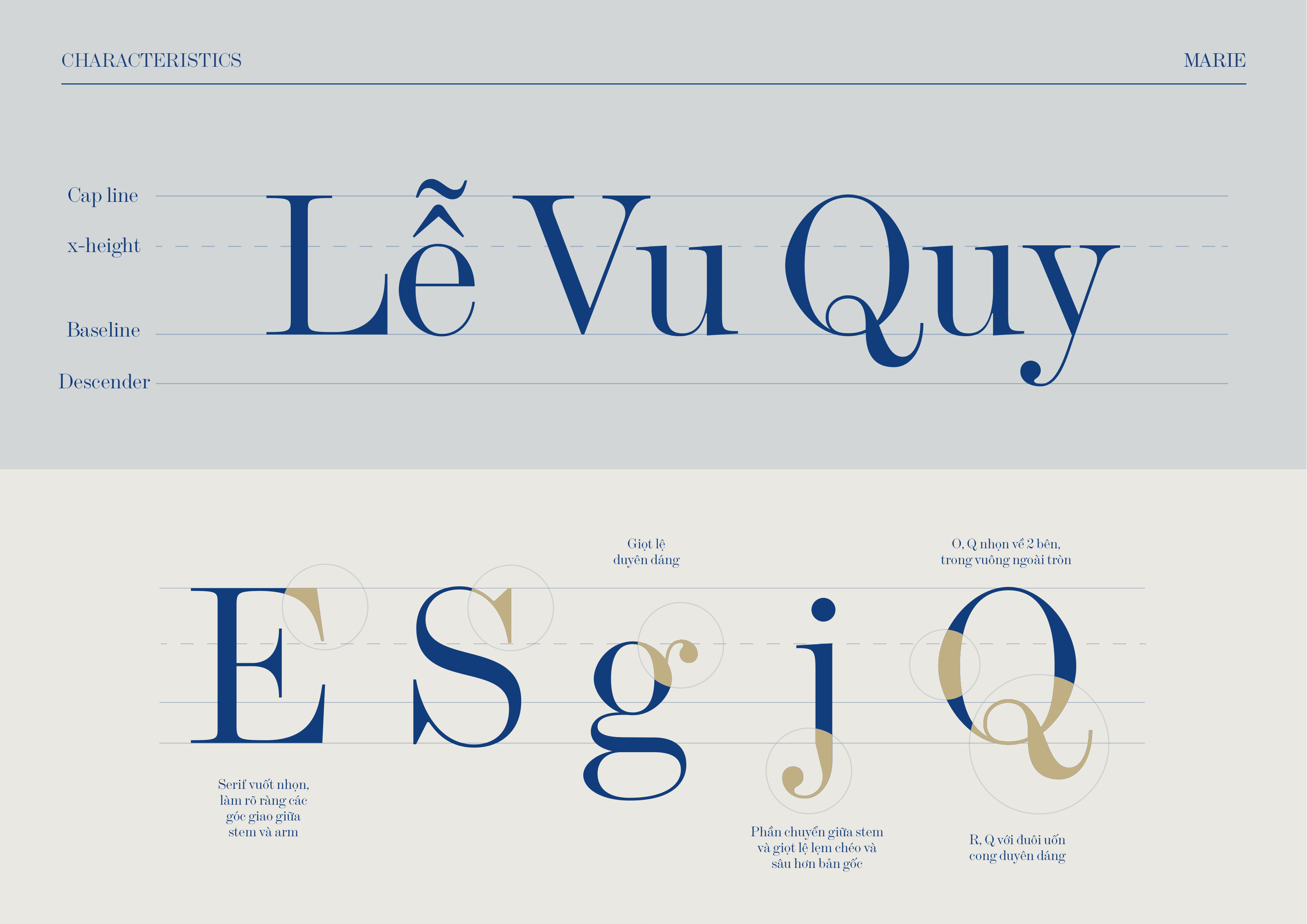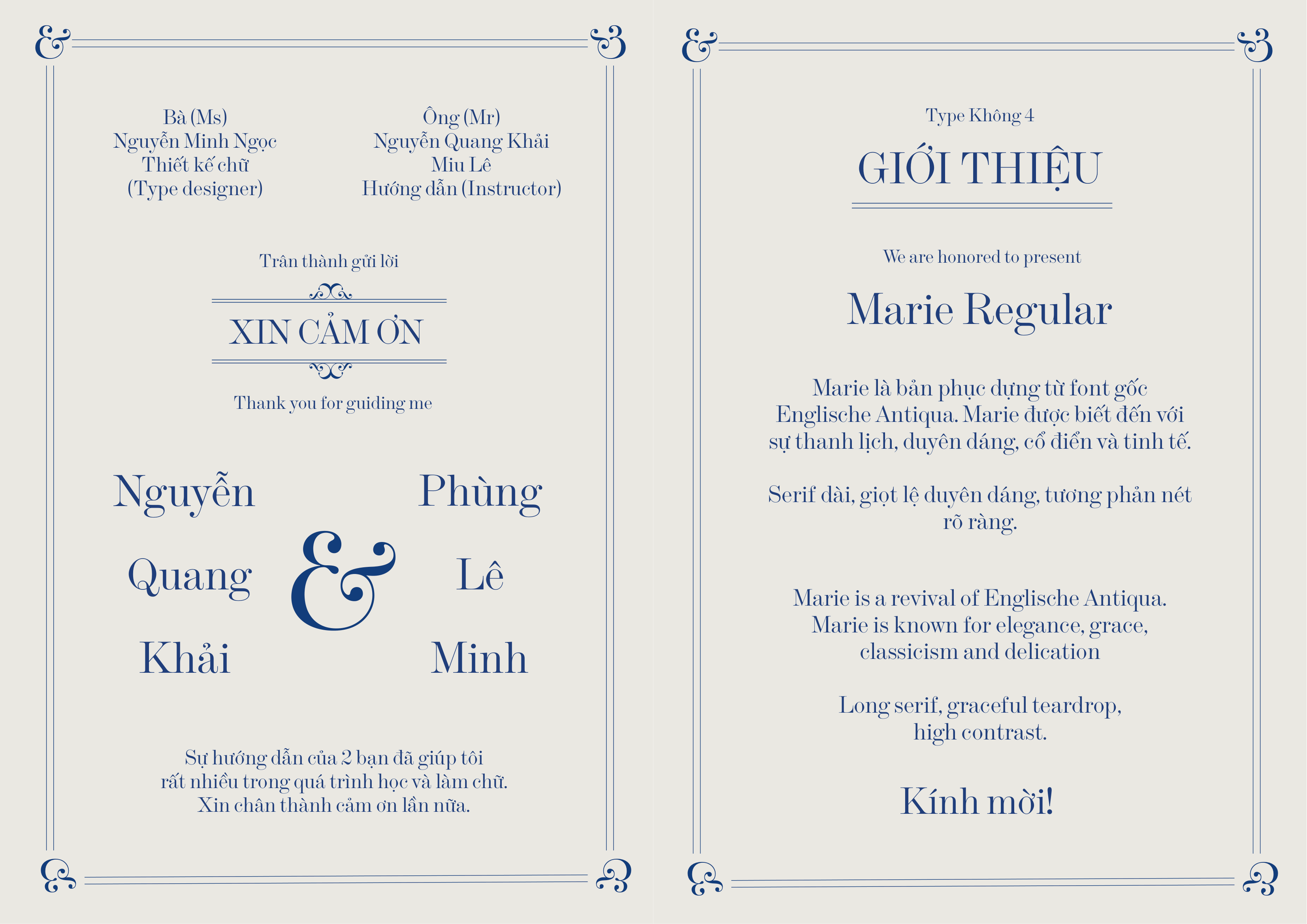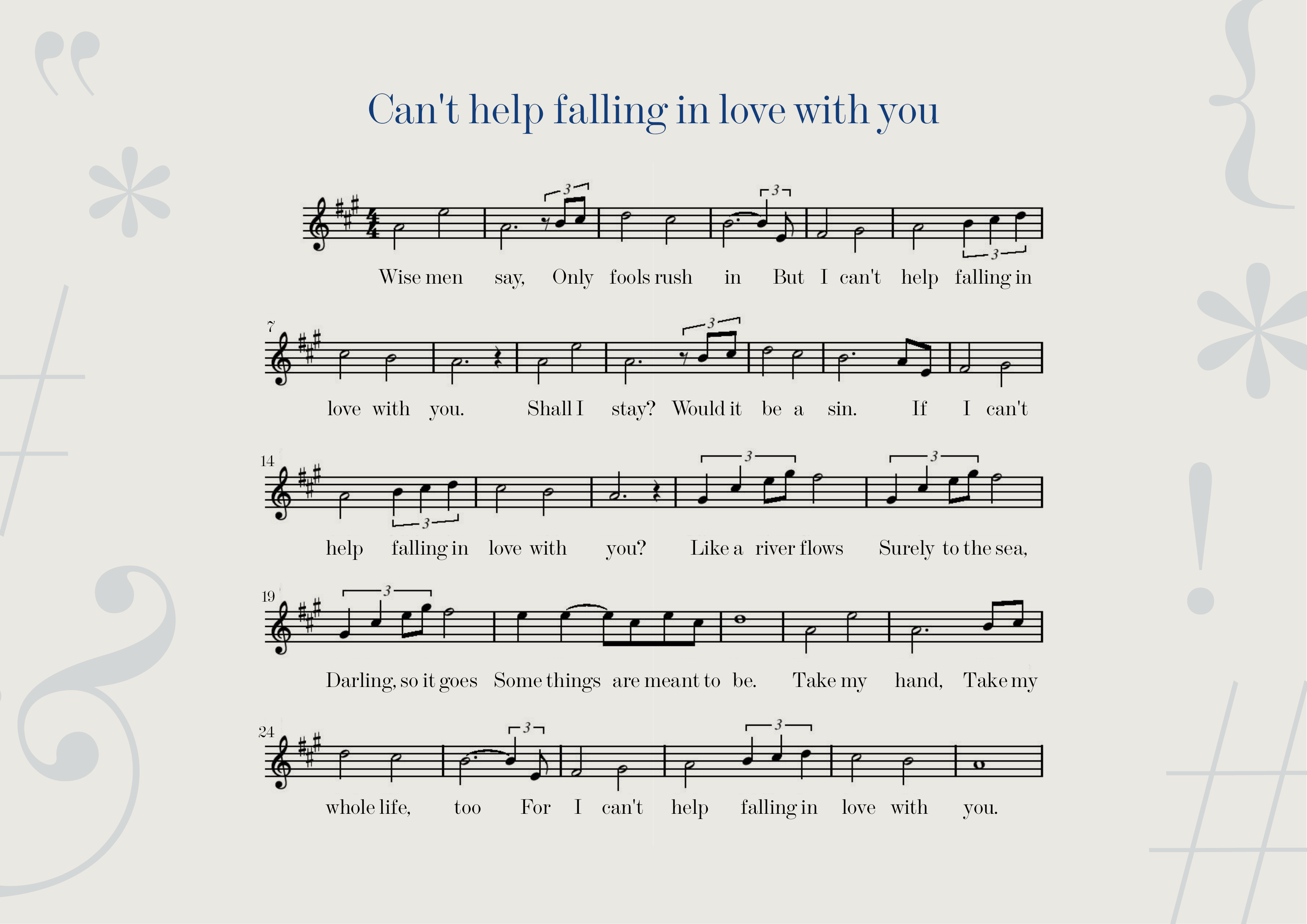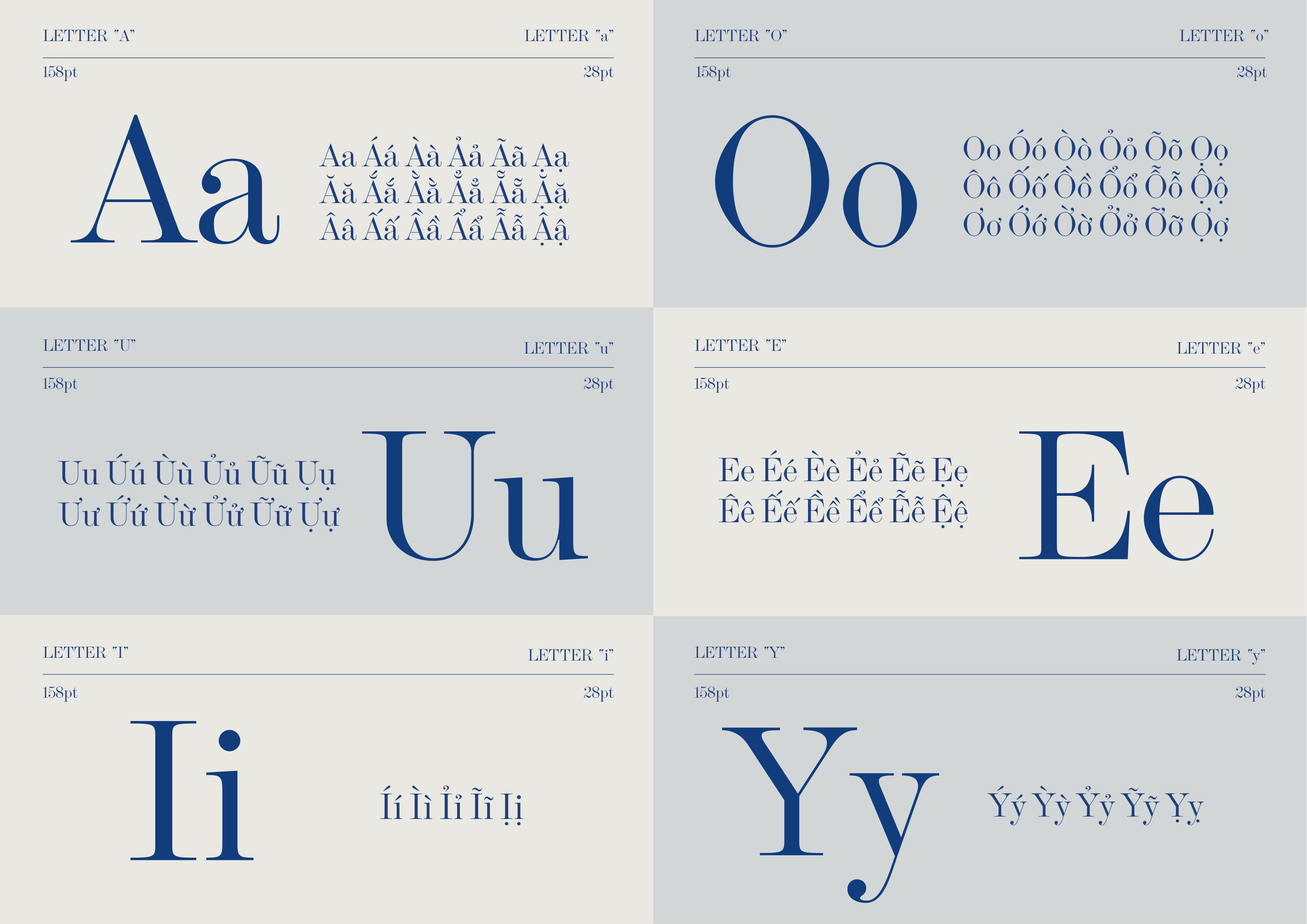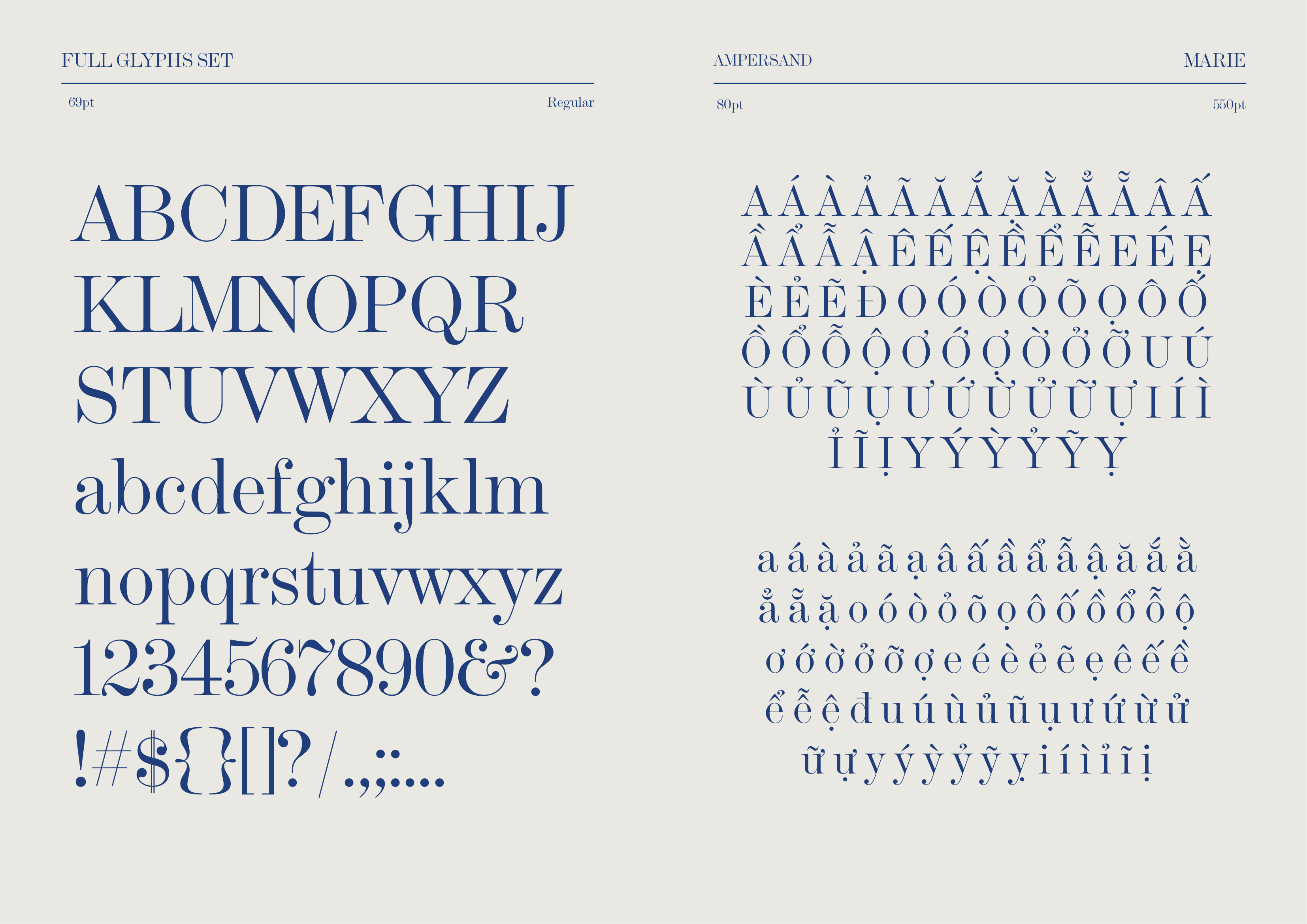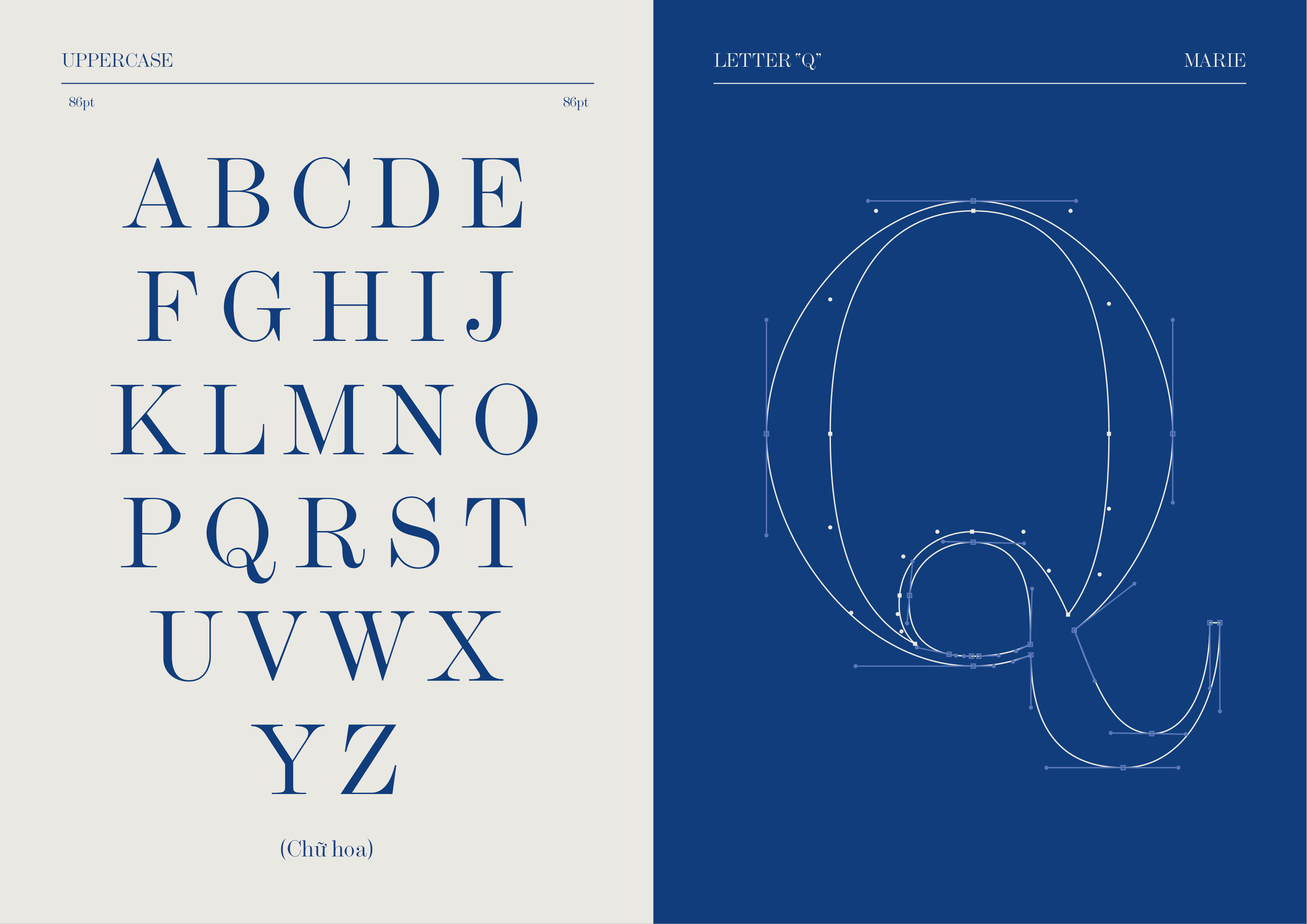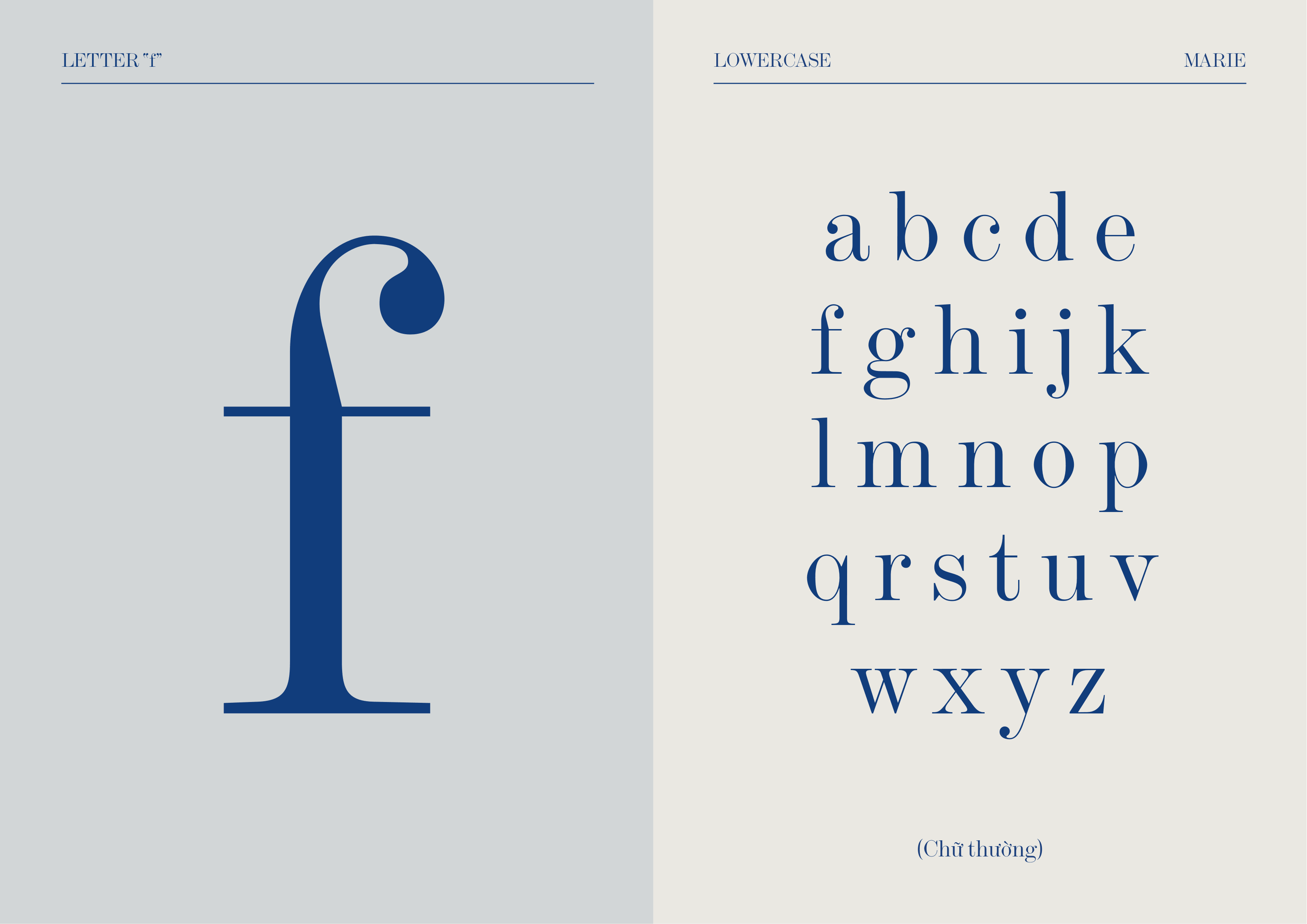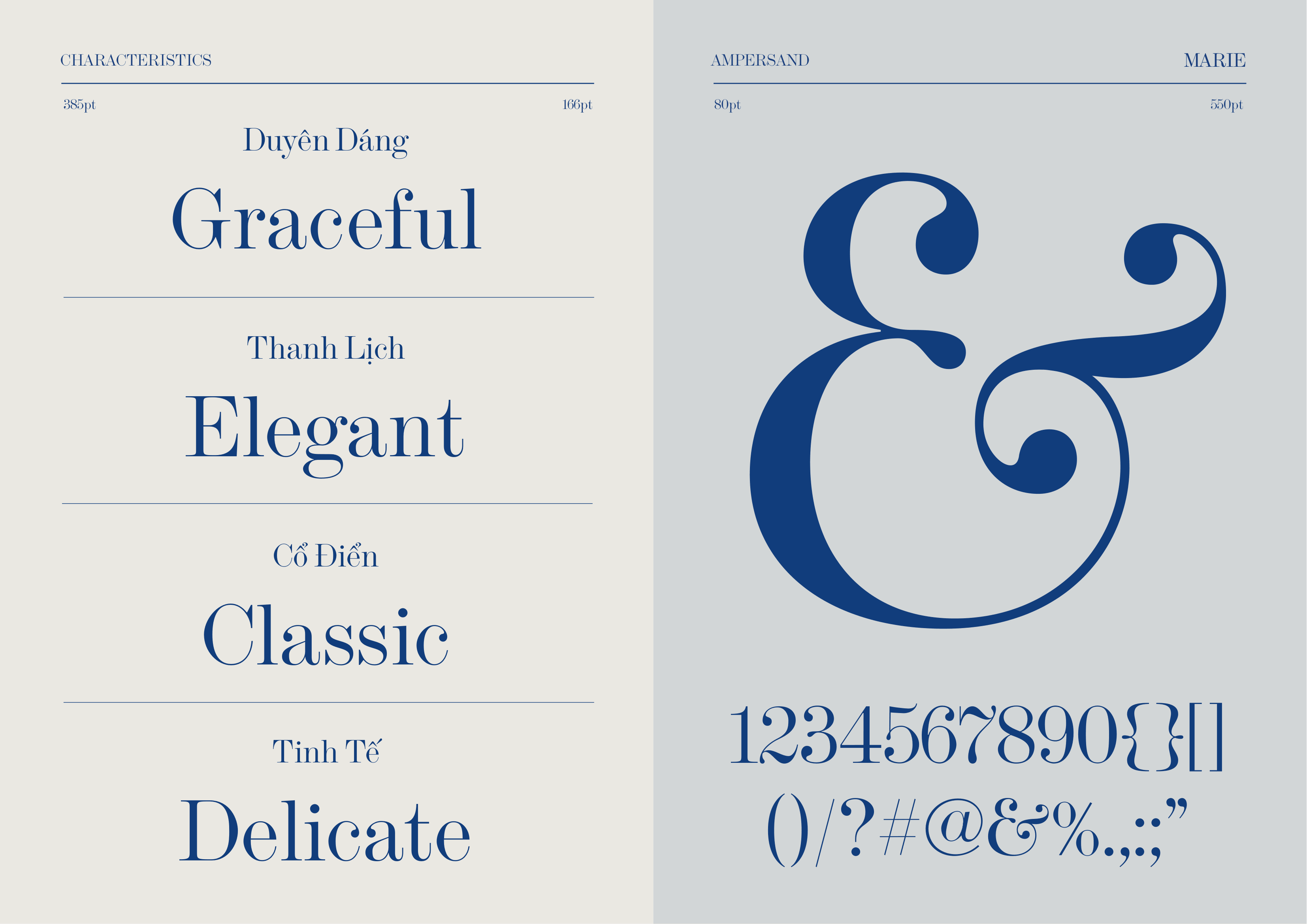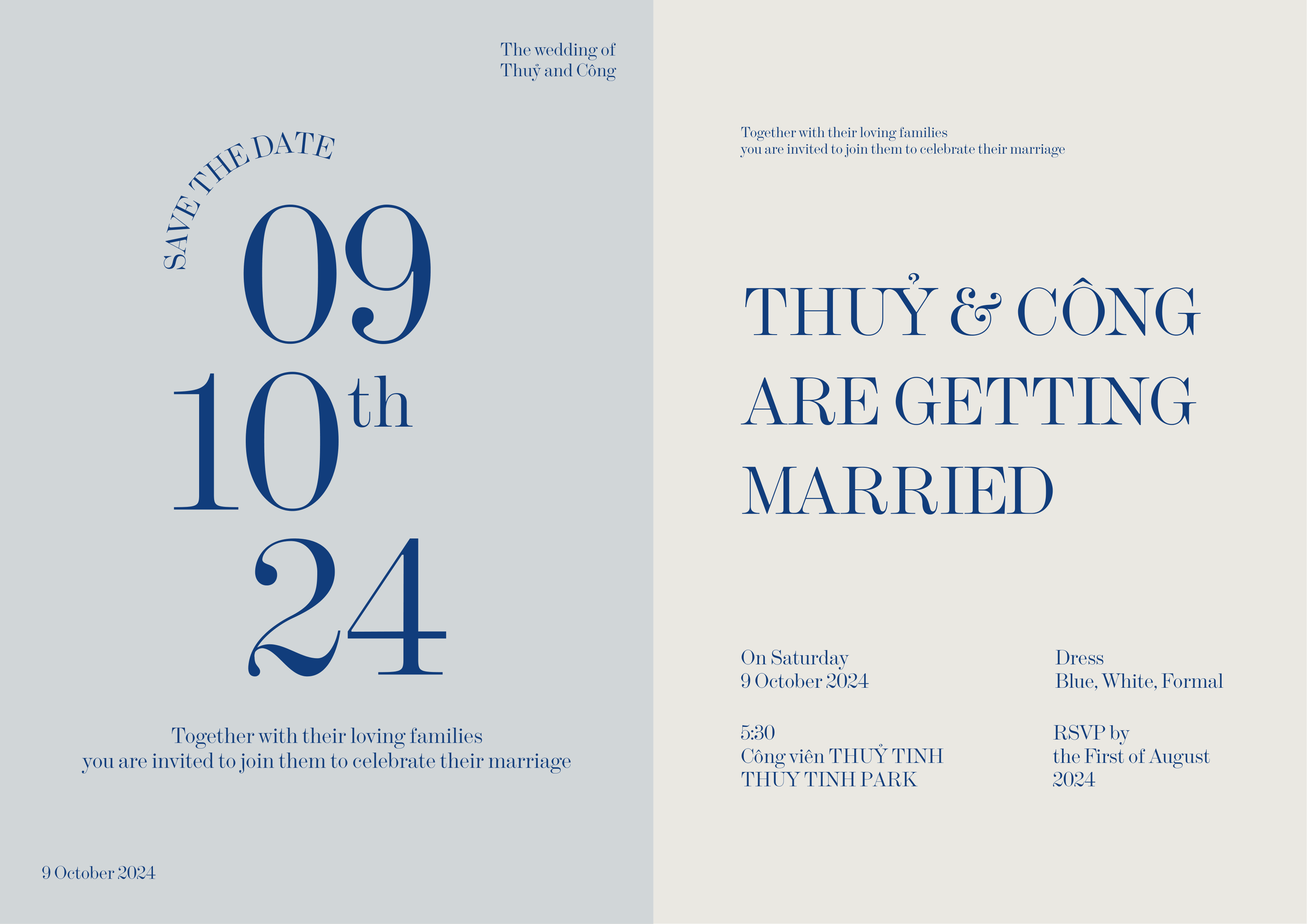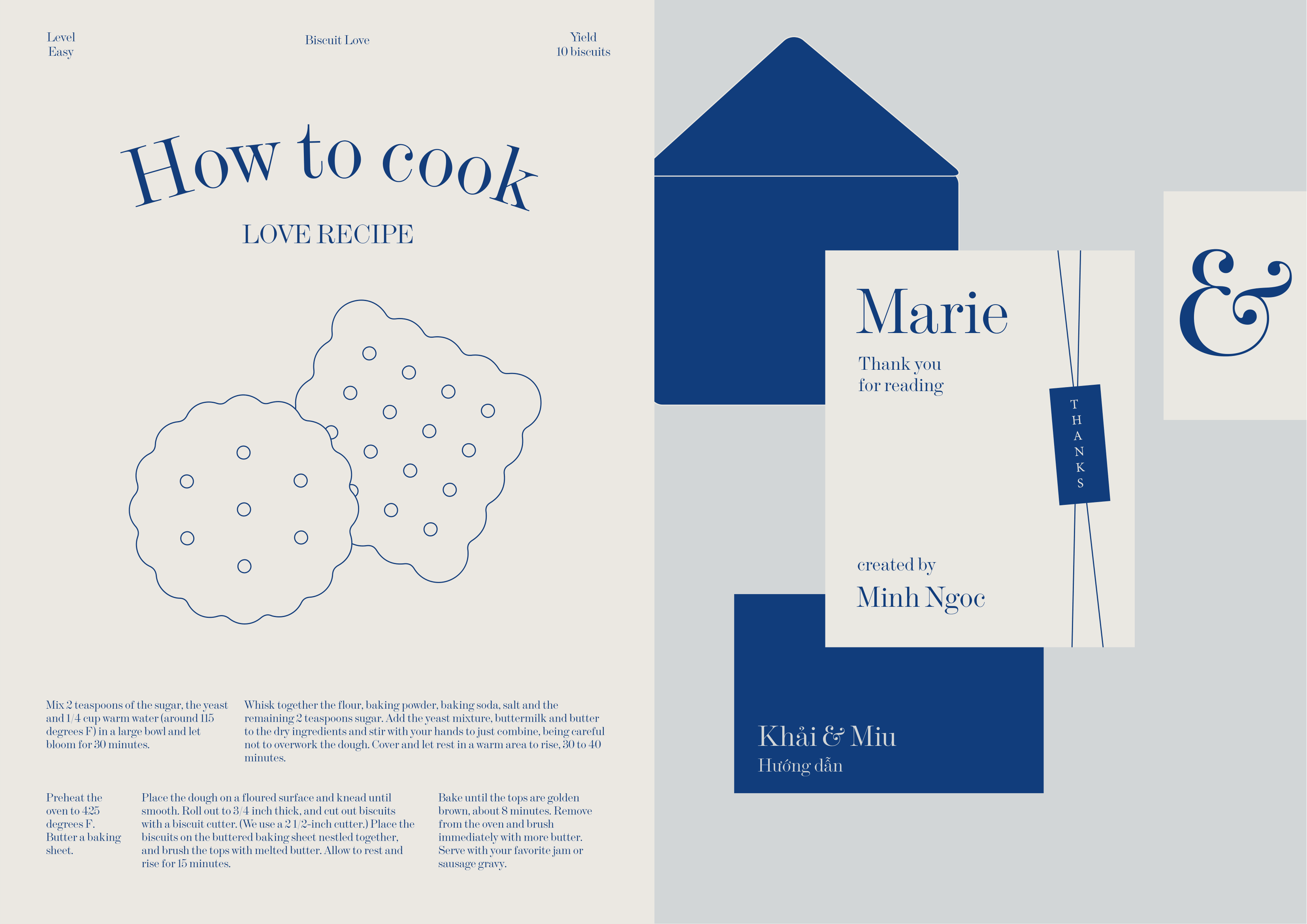
Marie
Về Marie: Marie là bản phục dựng từ font gốc Englische Antiqua. Marie được biết đến với sự thanh lịch, duyên dáng, cổ điển và tinh tế. Serif dài bo mềm nhẹ, giọt lệ duyên dáng, tương phản nét rõ ràng nhưng chuyển nét không quá gắt tạo vẻ lãng mạn đặc trưng.
Modern Serif
Display
This places Englische Antiqua firmly within Genzsch & Heyse's prestigious family of Antiqua typefaces, their "old style" serif range, which was the jewel of the Hamburg foundry's catalog in the early 20th century.
The name tells us exactly what it was: an old style serif in the English tradition, rooted in the great British type revival of the mid-19th century. This genre, pioneered by the Edinburgh foundry Miller & Richard and punchcutter Alexander Phemister, produced warm, readable, humanist serif faces that spread rapidly across Europe. Genzsch & Heyse had a strong appetite for English-influenced old style designs, also publishing a Franzosische Elzevir in 1892, whose smaller sizes came directly from the French Deberny foundry's Romain Ancien, with Genzsch & Heyse cutting matching larger sizes in-house.